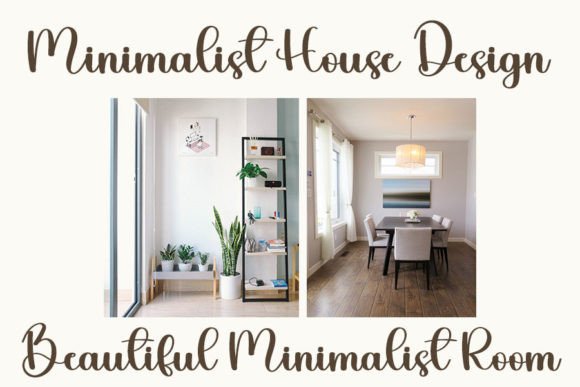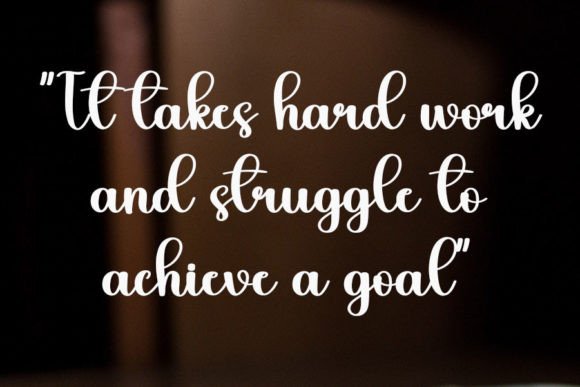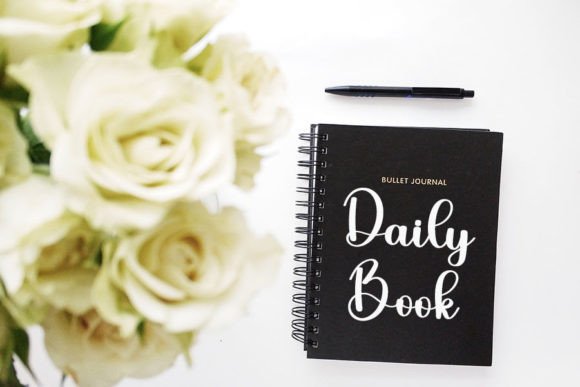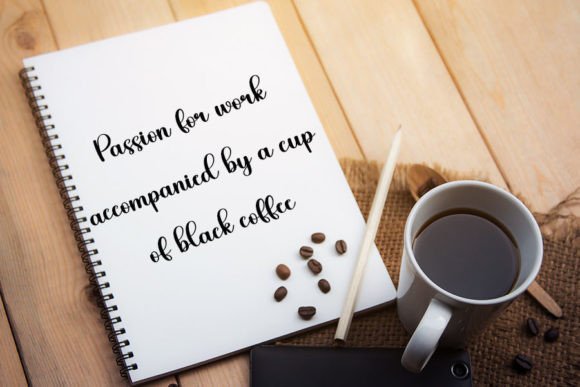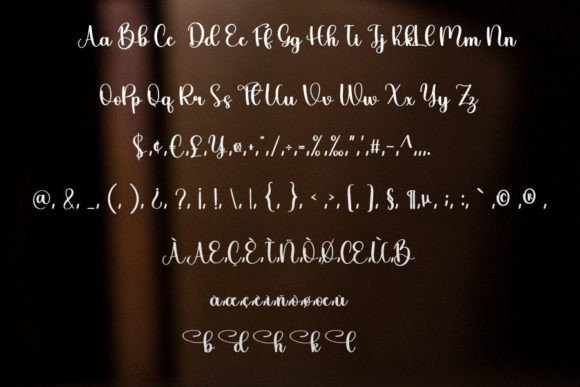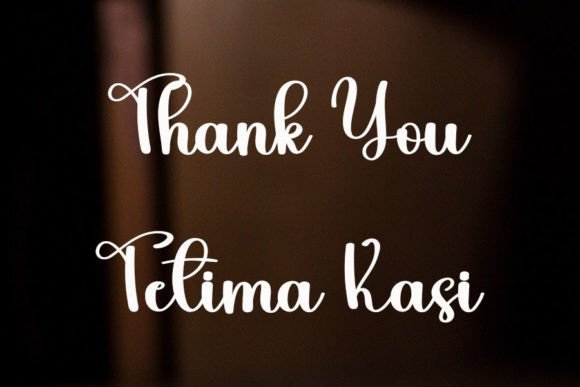
Introducing Couple Font: The Sweet and Beautiful Handwritten Font for Your Design Projects
Are you looking for a font that can add a touch of luxury and elegance to your design projects? Look no further than Couple Font, a sweet and beautiful handwritten font that is sure to impress. Featuring characters that dance along the baseline, this font is perfect for designers and crafters who want to create stunning and unique designs.
What Makes Couple Font So Special?
Couple Font is a one-of-a-kind handwritten font that is designed to add a touch of sophistication and glamour to any design project. The font features characters that are carefully crafted to dance along the baseline, creating a sense of movement and fluidity. This unique feature makes Couple Font stand out from other fonts and gives it a distinctive look that is sure to grab attention.
Couple Font is a versatile font that can be used for a wide range of design projects, including:
- Blog and website design
- Print-on-demand products, such as t-shirts and mugs
Whether you’re a designer, crafter, or DIY enthusiast, Couple Font is the perfect choice for any project that requires a touch of elegance and sophistication.
Key Features of Couple Font
Here are some of the key features that make Couple Font so special:
- Handwritten font with a unique and distinctive look
- Characters that dance along the baseline, creating a sense of movement and fluidity
- Luxurious and elegant feel that’s perfect for high-end designs
- Versatile and can be used for a wide range of design projects
- Easy to read and understand, making it perfect for body text and headlines
Tips for Using Couple Font in Your Designs
Here are some tips for using Couple Font in your designs:
- Use Couple Font as a headline font to add a touch of elegance and sophistication to your design
- Pair Couple Font with a sans-serif font for a modern and stylish look
- Use Couple Font to create beautiful and unique wedding invitations and stationery
Why Choose Couple Font?
There are many reasons why you should choose Couple Font for your design projects. Here are just a few:
- Unique and distinctive look that will set your designs apart
- Luxurious and elegant feel that’s perfect for high-end designs
- Versatile and can be used for a wide range of design projects
- Easy to read and understand, making it perfect for body text and headlines
- High-quality font that is designed to deliver exceptional results
| Font Name | Couple Font |
| Author | Harlek studio |